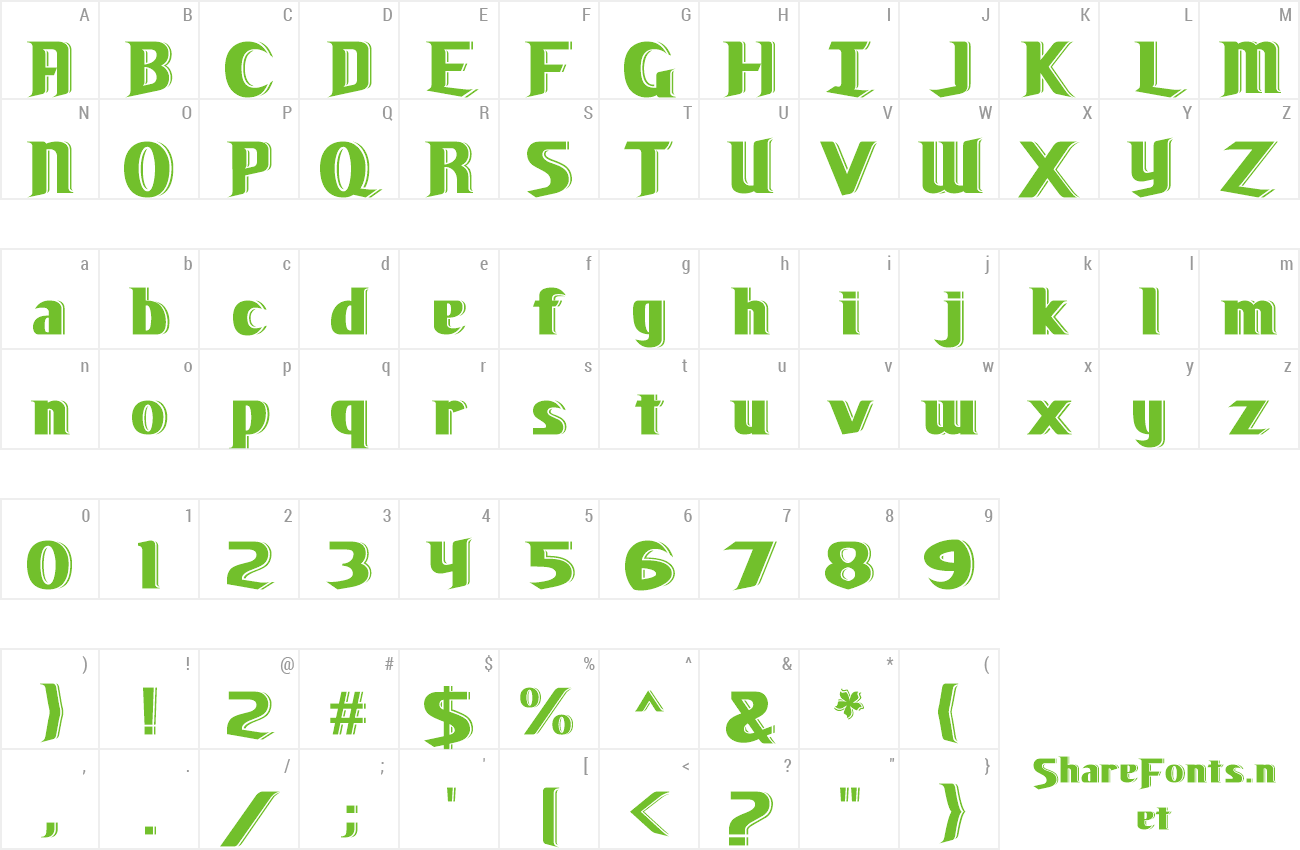
La Mesa Font
La Mesa Font - Download la mesa font free! La mesa is a bold font suitable for logos, letterheads & headlines. It also resembles the lettering used by the miller.